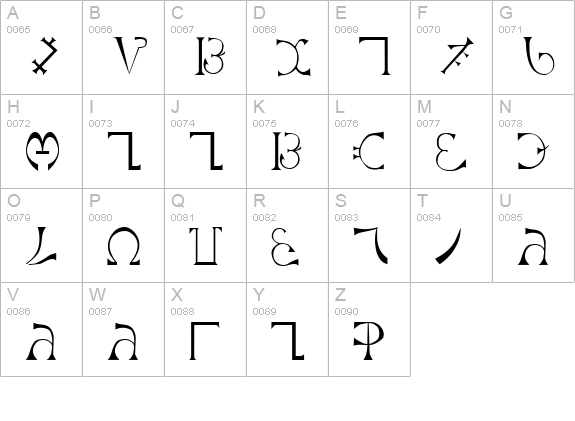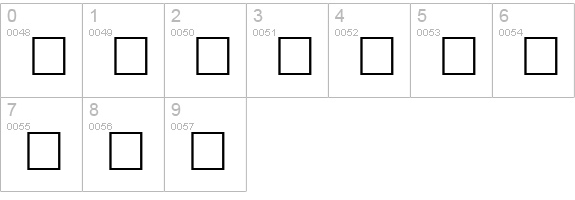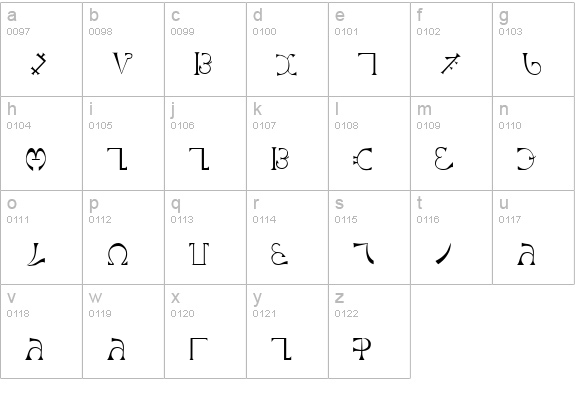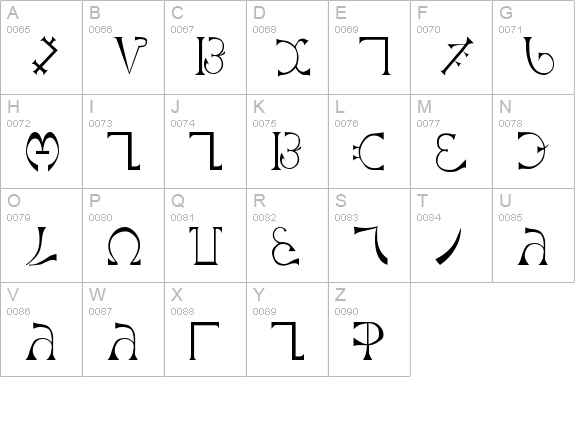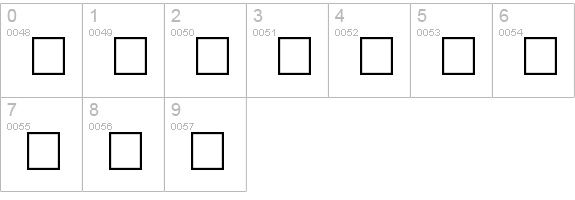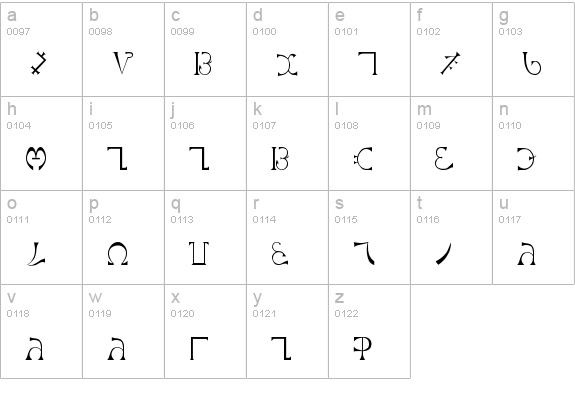
Enochian Regular Font Details
Enochian Regular is the standard, neutral variant in the Enochian typeface family \xE2\x80\x94 well suited to general body text, paragraphs, and standard typographic work.
Enochian Regular font is a beautifully crafted typeface that exudes elegance and sophistication. Its sleek lines and intricate details make it perfect for a wide range of design projects, from branding to editorial layouts. The timeless appeal of Enochian Regular font adds a touch of class to any design, making it a versatile choice for both print and digital applications. What sets Enochian Regular font apart is not only its stunning aesthetics but also its accessibility. This font is available for free download at FontsMarket.com, making it easy for designers and enthusiasts alike to incorporate its unique charm into their work. Whether you're creating a logo, website, or any other creative project, Enochian Regular font is sure to elevate your design with its distinctive style and flair. Download it today and start exploring the endless possibilities that this beautiful font has to offer.